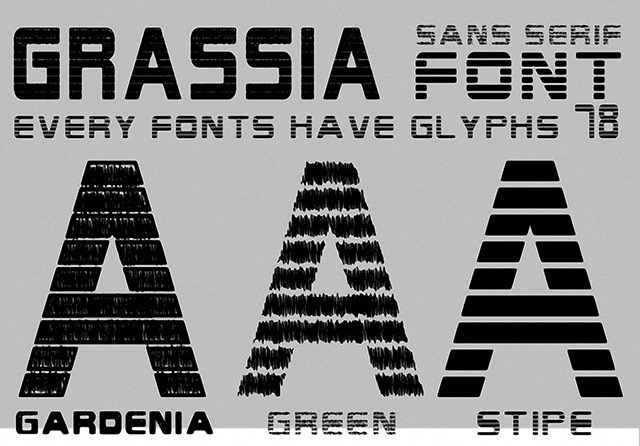
Grassia Font
Grassia tree type of family is a sans serif font. Grassia Gardenia, Green and Stipe are Useful for various design project. Download file contains both TTF and OTF file format. 75 glyphs are available.